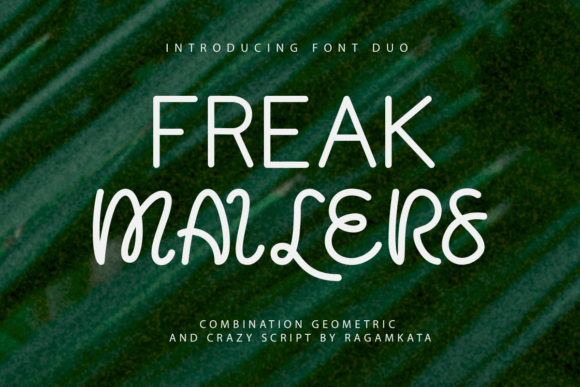
Step into a world of typographical magic with Freak Mailers Font, a captivating sans serif font duo that will redefine your creative boundaries. Experience the harmonious fusion of a clean, classic sans serif with a touch of whimsical script, crafted to perfection by RagamKata Studio.
Freak Mailers is not just a font; it's an expression of individuality and style. Its rounded edges and playful curves exude a sense of modernity and sophistication, making it the perfect choice for those seeking a font that stands out from the crowd.
With Freak Mailers, you can effortlessly elevate your designs, adding a touch of elegance and charm to your logos, headlines, book covers, magazines, and more. Its versatility knows no bounds, allowing you to create designs that resonate with your audience and leave a lasting impression.
Whether you're a seasoned designer or just starting your creative journey, Freak Mailers is the perfect font to unleash your imagination and create designs that captivate and inspire. Its user-friendly nature makes it accessible to all, ensuring that your creative visions are brought to life with ease.
Don't settle for ordinary fonts that blend into the background. Embrace the uniqueness of Freak Mailers and watch your designs come alive with personality and flair. Its timeless appeal ensures that your creations will remain relevant and impactful for years to come.
So why wait? Dive into the world of Freak Mailers Font today and embark on a creative odyssey that will leave your audience spellbound. Let your designs speak volumes with a font that embodies modernity, sophistication, and a touch of whimsy.
With Freak Mailers, the possibilities are endless. Unleash your creativity and let your designs shine with a font that truly reflects your unique style and vision.